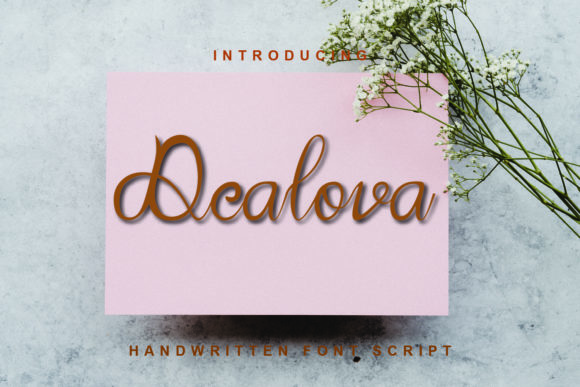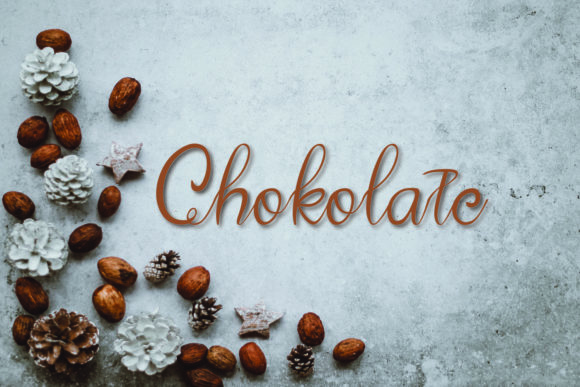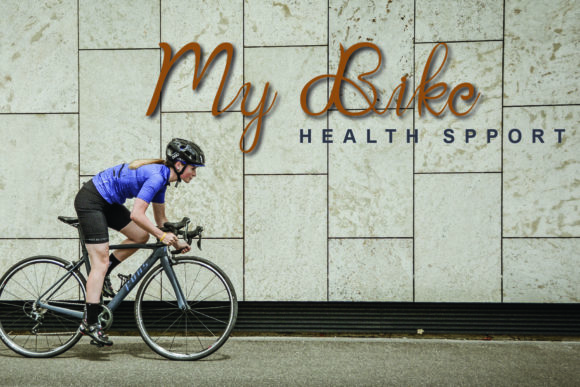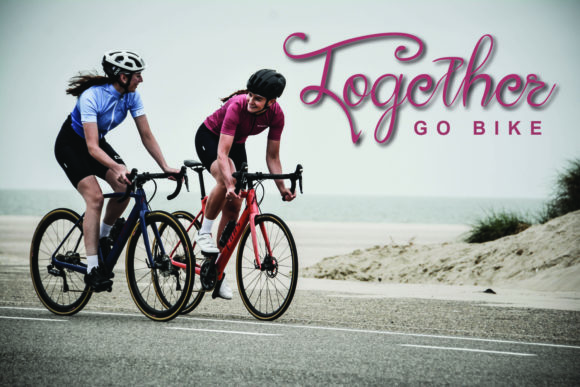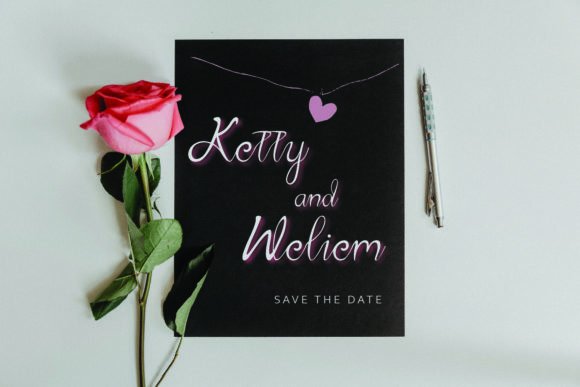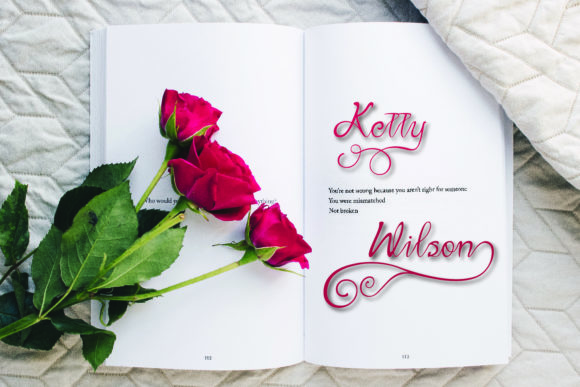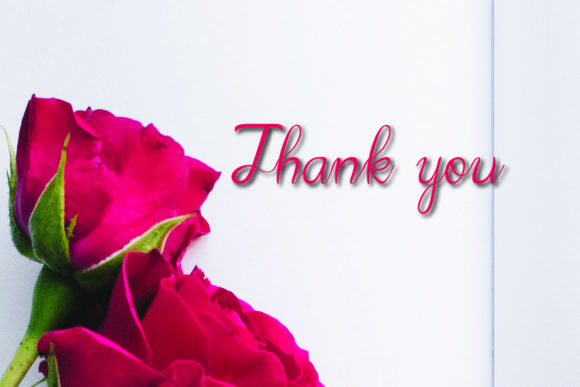
Dealova Font
About Dealova Font
Dealova is a delicate and flowing handwritten font. It maintains its classy calligraphic influences while feeling contemporary and fresh. Fall in love with Dealova and bring your projects to the highest levels!